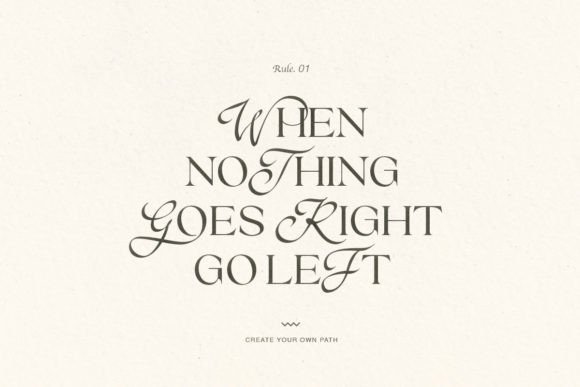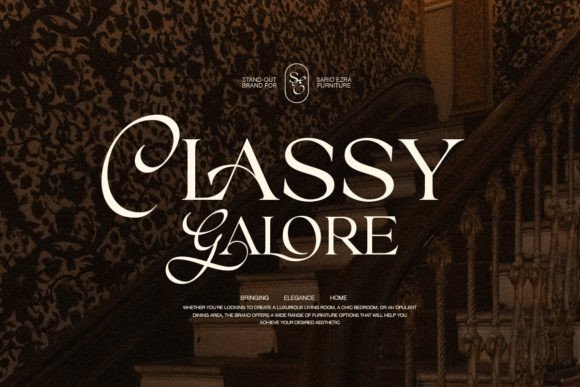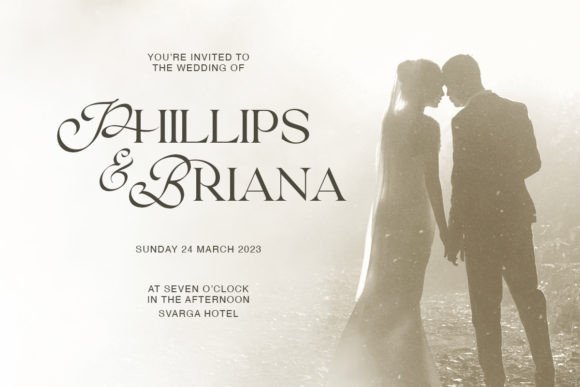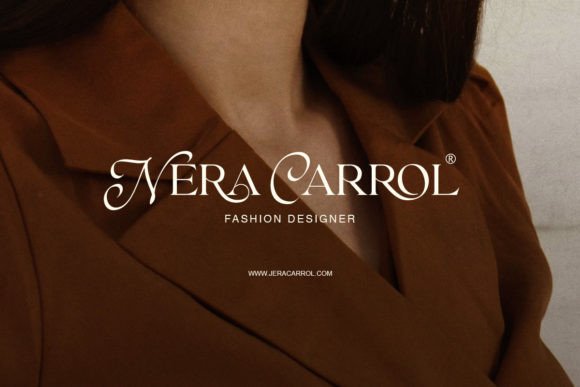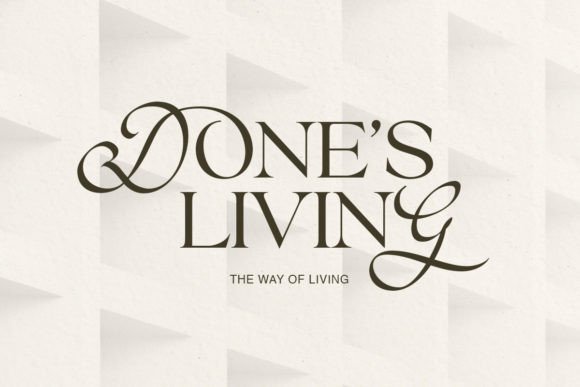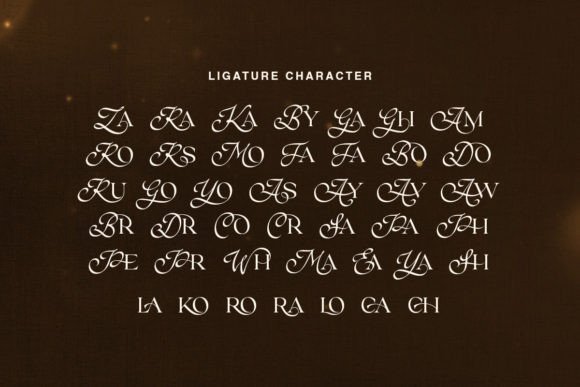
Brown Royal Font: Elevate Your Design with Elegance and Sophistication
In the world of typography, fonts play a crucial role in conveying the tone and personality of a design. For designers and crafters looking to add a touch of luxury and sophistication to their projects, the Brown Royal Font is an excellent choice. This stunning font combines the best of both worlds, blending stylish script uppercase letters with classic all-caps serif lowercase letters.
A Unique Combination of Styles
Brown Royal Font is a unique and versatile typeface that allows you to experiment with different looks and styles. The uppercase letters are designed in a stylish script font, perfect for making a statement or adding a touch of elegance to your design. On the other hand, the lowercase letters are set in a classic all-caps serif font, providing a sense of tradition and timelessness.
One of the standout features of Brown Royal Font is its flexibility. You can use the uppercase letters from the start of a word, or incorporate them into the middle of a word for a modern and stylish look. This versatility makes it easy to adapt the font to your design needs, whether you’re working on a logo, branding project, or wedding invitation.
The Beauty of Ligatures
Brown Royal Font also boasts beautiful ligatures, which are unique combinations of two characters that are designed to flow together seamlessly. These ligatures add an extra layer of sophistication and elegance to your design, making it truly stand out. With Brown Royal Font, you can create stunning text-based designs that exude luxury and refinement.
The Brown Royal Font is incredibly versatile and can be used for a wide range of design projects. Here are just a few ideas to get you started:
- Logo Design: Use Brown Royal Font to create a stunning logo that showcases your brand’s personality and style.
- Branding: Incorporate Brown Royal Font into your branding materials, such as business cards, letterheads, and packaging, to create a cohesive and sophisticated look.
- Quotes and Posters: Add a touch of elegance to your quotes and posters with Brown Royal Font, making them perfect for social media, advertising, or display.
- Wedding Invitations: Make your wedding invitations truly special with Brown Royal Font, adding a touch of luxury and romance to your big day.
Why Choose Brown Royal Font?
With so many fonts available, why choose Brown Royal Font? Here are just a few reasons why this font stands out:
- Unique Style: Brown Royal Font offers a unique combination of stylish script uppercase letters and classic all-caps serif lowercase letters, making it a standout in any design.
- Flexibility: The font’s flexibility allows you to experiment with different looks and styles, making it easy to adapt to your design needs.
- Ligatures: The beautiful ligatures in Brown Royal Font add an extra layer of sophistication and elegance to your design.
- Versatility: Brown Royal Font can be used for a wide range of design projects, from logos and branding to quotes and wedding invitations.
In conclusion, Brown Royal Font is an exceptional choice for designers and crafters looking to add a touch of luxury and sophistication to their projects. With its unique combination of stylish script uppercase letters and classic all-caps serif lowercase letters, beautiful ligatures, and flexibility, this font is sure to elevate your design to the next level. Whether you’re working on a logo, branding project, or wedding invitation, Brown Royal Font is the perfect choice for creating stunning and elegant designs.